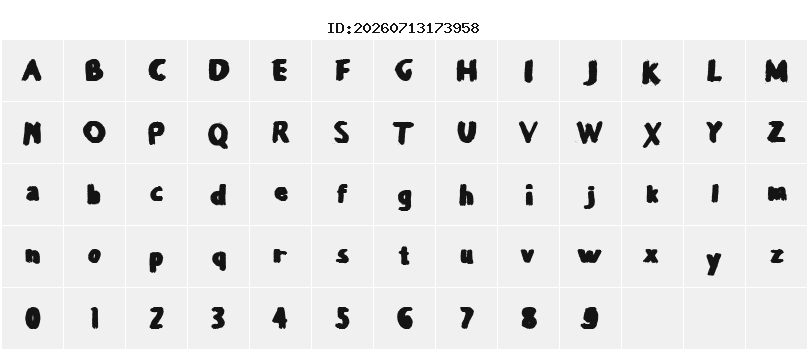
Balballa Preview
• Font Name: Balballa
• Font ID: VeredGiladFriedman: Balballa: 2009
• Full Font Name: Balballa
• Version: Version 1.000 2009 initial release
• PostScript Name: Balballa
• Designer: Vered Gilad Friedman
• Manufacturer: Vered Gilad Friedman
About Balballa.ttf
Balballa.ttf is a modern, elegant sans-serif font designed for ultimate readability and visual harmony. Perfect for branding, headlines, web design, and print materials.